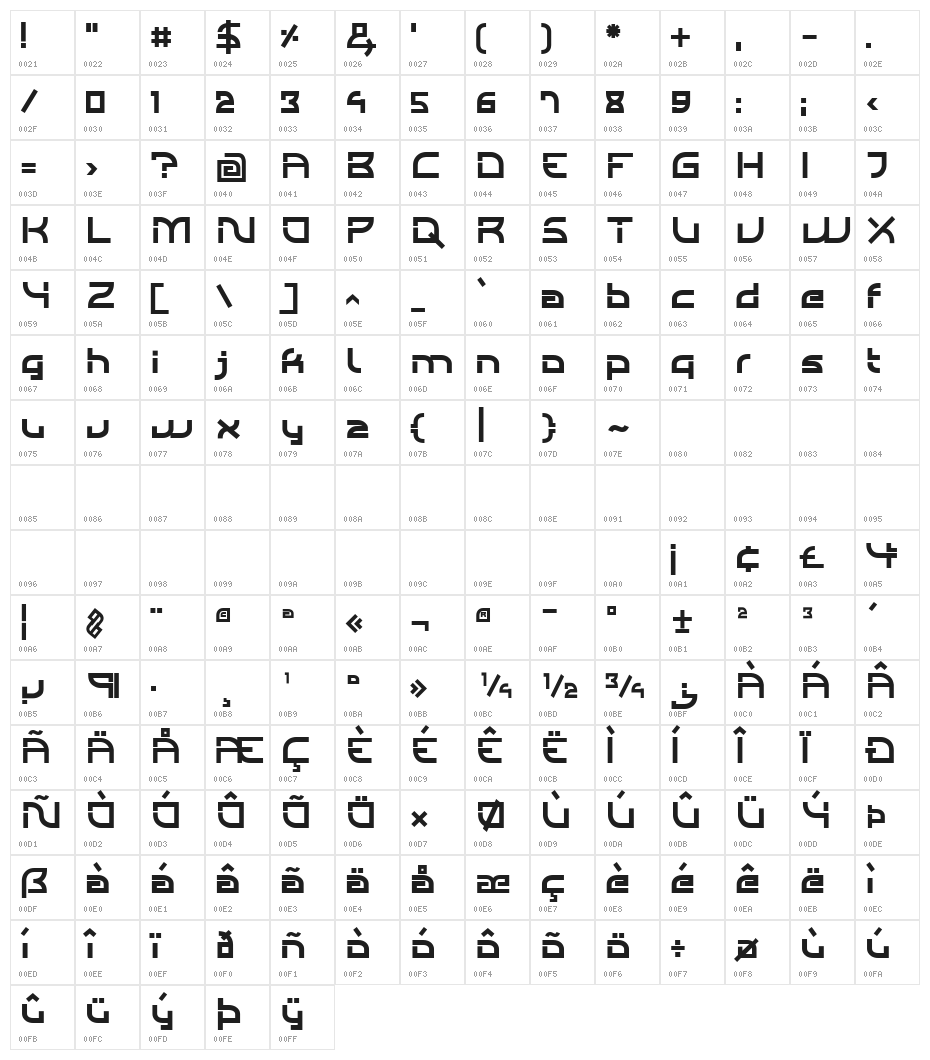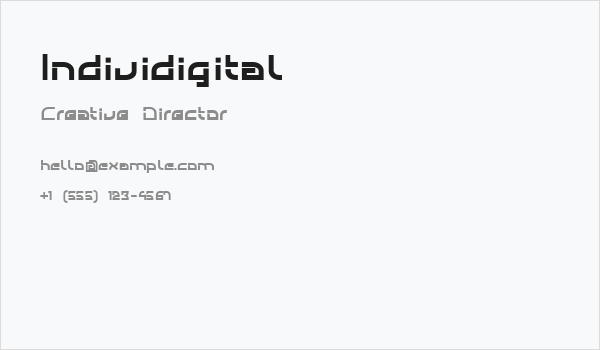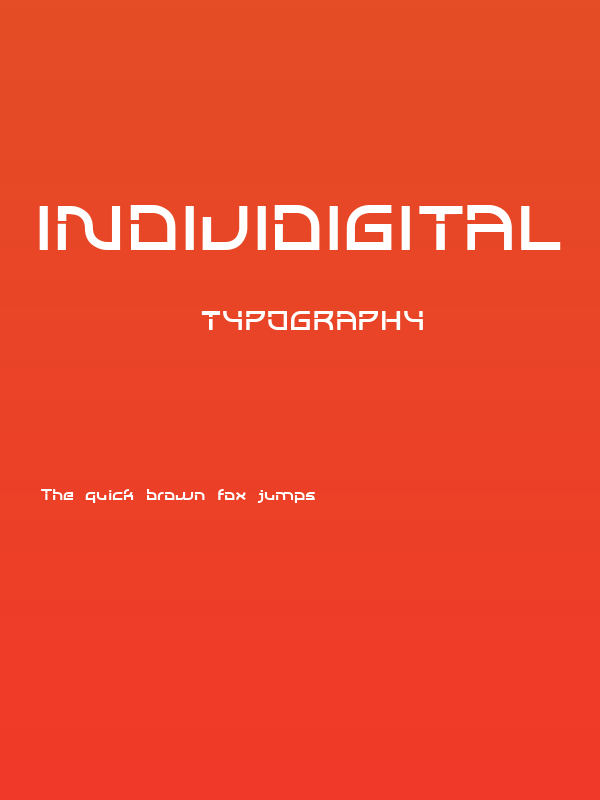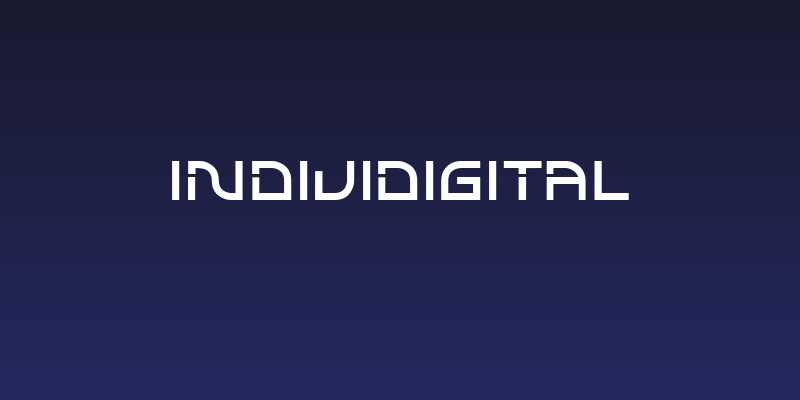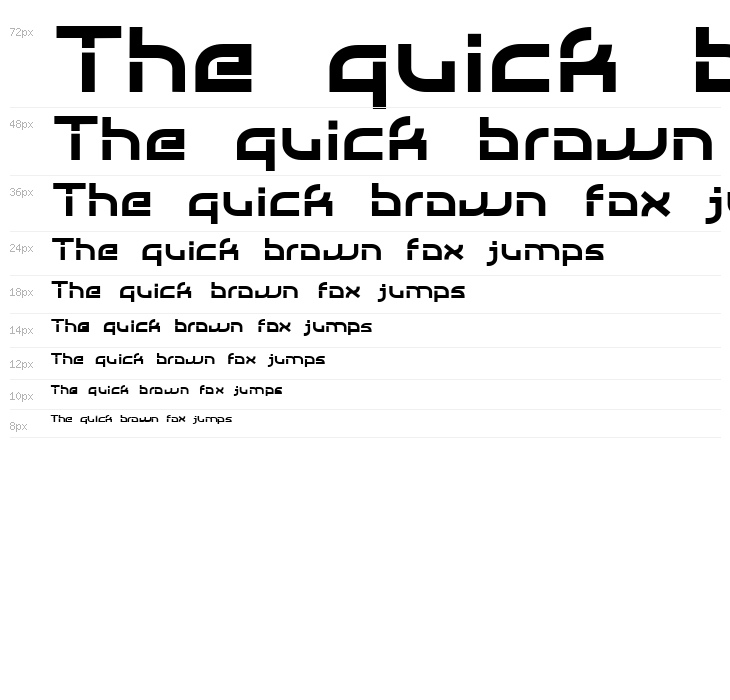
Individigital Font
Individigital Description
This font features a futuristic and geometric design, characterized by its bold and angular letterforms. The uppercase and lowercase letters maintain a consistent style with sharp edges and a modern aesthetic. The numerals and special characters follow the same design principles, ensuring uniformity across all glyphs. The font's distinct style makes it suitable for projects that require a contemporary and tech-inspired look.
Proposed ProjectsIdeal for technology branding, sci-fi themed projects, video game titles, and modern advertising campaigns.